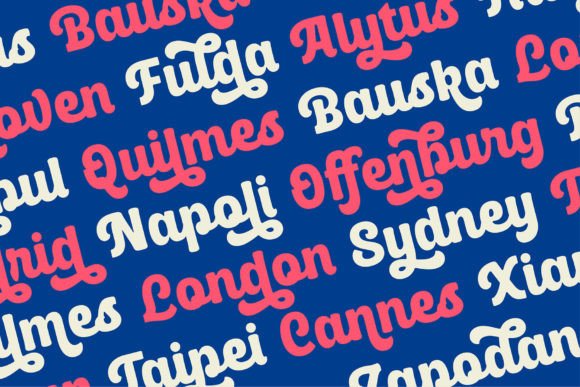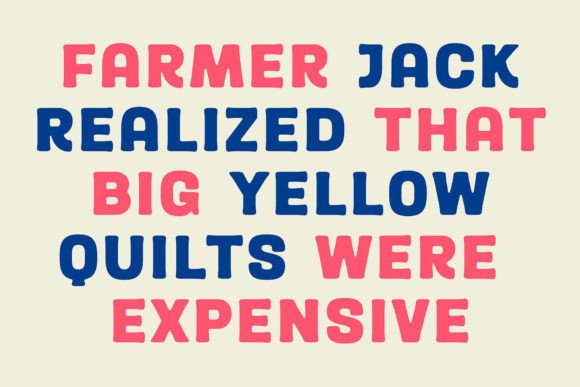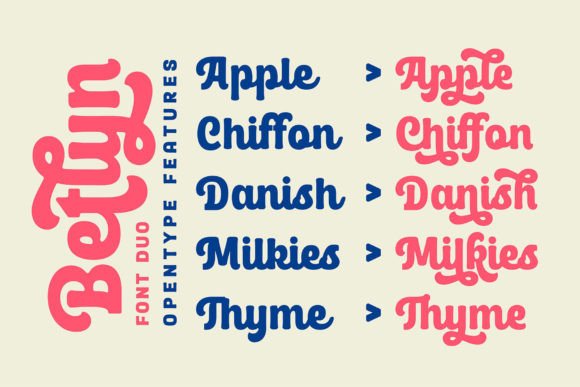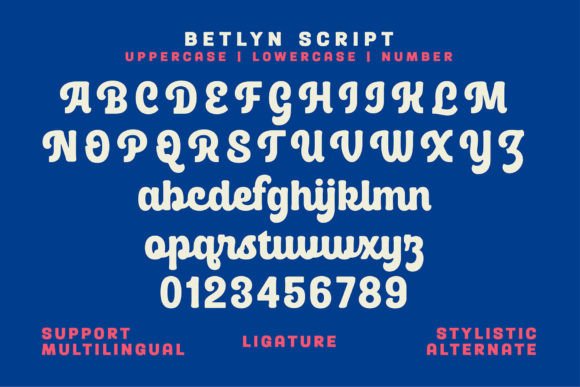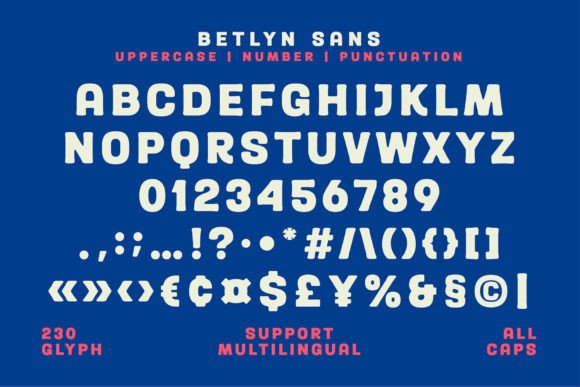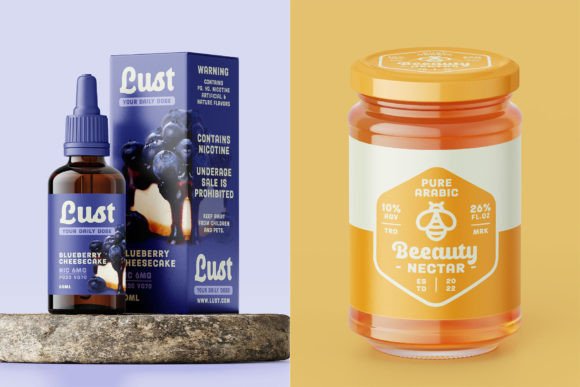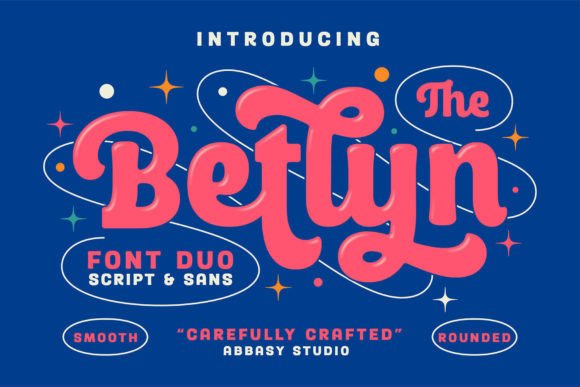
Introducing Betlyn Font: Elevate Your Designs with Elegance and Sophistication
In the world of typography, fonts play a crucial role in conveying the tone and personality of a design. For designers and crafters, finding the perfect font can be a daunting task. However, if you’re looking for a pair of fonts that exude elegance, sophistication, and a touch of playfulness, look no further than Betlyn Font. This stunning duo combines a smooth sans serif and a delicious bold script, making it an ideal choice for a wide range of creative projects.
The Characteristics of Betlyn Font
Betlyn Font is a thoughtfully crafted pair of fonts that boasts a unique blend of styles. The sans serif font is sleek and modern, with clean lines and a sophisticated feel. On the other hand, the bold script font is flowing and elegant, with a touch of whimsy and playfulness. When used together, these fonts create a beautiful contrast that adds depth and visual interest to any design.
The key characteristics of Betlyn Font include:
• Smooth Sans Serif: The sans serif font features clean lines, smooth curves, and a modern aesthetic.
• Delicious Bold Script: The bold script font is flowing, elegant, and perfect for adding a touch of sophistication to your designs.
• Stylish and Graceful: Betlyn Font is designed to add a touch of elegance and refinement to your designs.
• Flowing and Natural: The script font has a natural, flowing feel that adds a touch of whimsy and playfulness to your designs.
Why Choose Betlyn Font?
So, why should you choose Betlyn Font for your next design project? Here are just a few reasons:
• Elevate Your Designs: Betlyn Font is designed to elevate the look of your designs, adding a touch of sophistication and elegance.
• Versatile: This font pair is versatile and can be used for a wide range of projects, from branding and packaging to invitations and social media graphics.
• Easy to Read: The sans serif font is clear and easy to read, making it perfect for body text and captions.
• Unique and Creative: The bold script font adds a touch of creativity and whimsy to your designs, making them stand out from the crowd.
How to Use Betlyn Font in Your Designs
Betlyn Font can be used in a variety of ways to add a touch of elegance and sophistication to your designs. Here are a few ideas:
• Branding and Packaging: Use Betlyn Font to create stunning brand identities, packaging, and labels.
• Invitations and Stationery: Add a touch of elegance to your invitations, stationery, and greeting cards.
• Social Media Graphics: Use Betlyn Font to create eye-catching social media graphics, including Facebook posts, Instagram stories, and Twitter headers.
• Web Design: Betlyn Font can be used in web design to add a touch of sophistication and elegance to your website.
In conclusion, Betlyn Font is a stunning pair of fonts that can elevate the look of any design. With its smooth sans serif and delicious bold script, this font pair is perfect for designers and crafters looking to add a touch of elegance and sophistication to their creations. Whether you’re working on a branding project, creating social media graphics, or designing invitations, Betlyn Font is a versatile and creative choice.